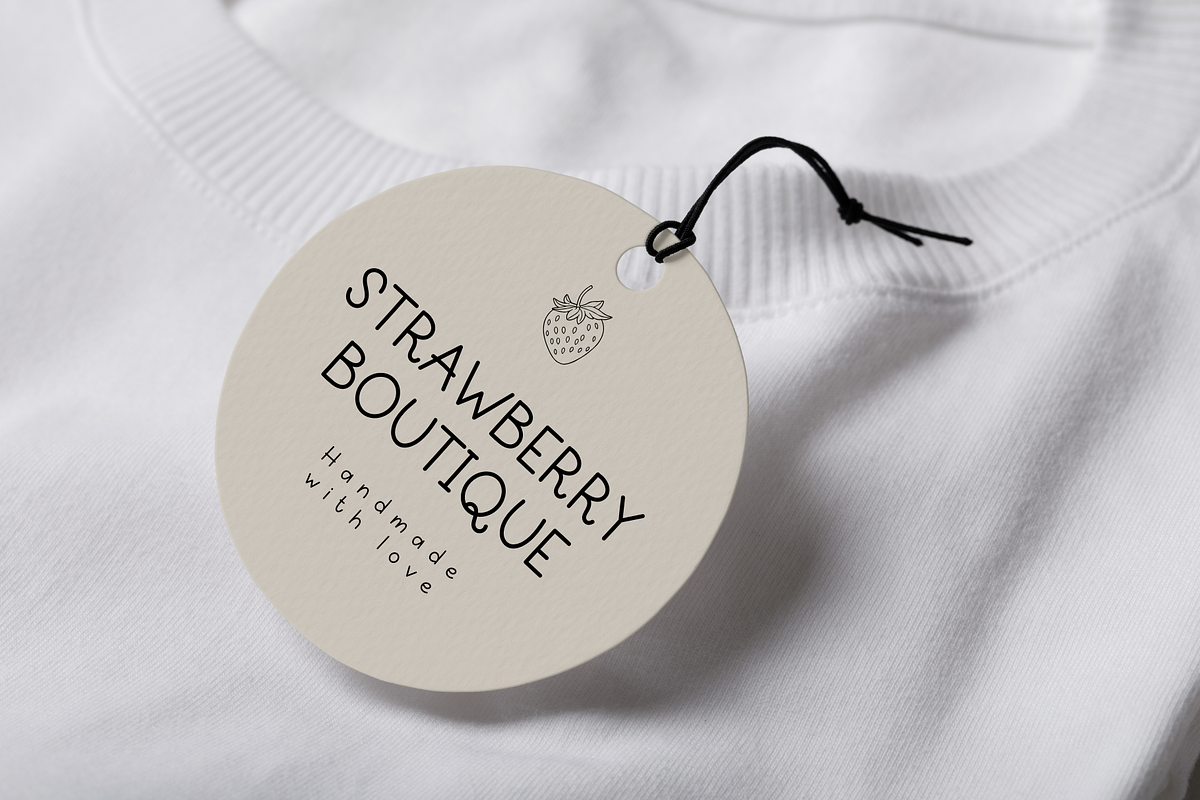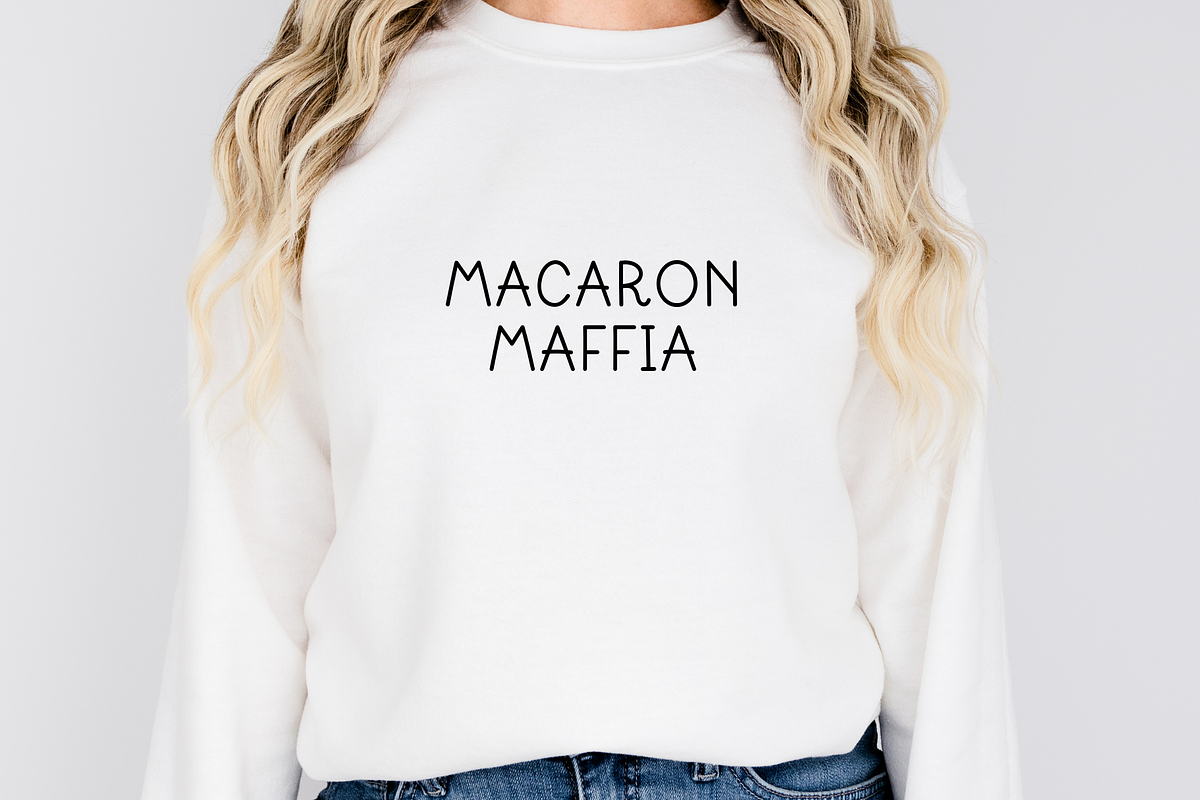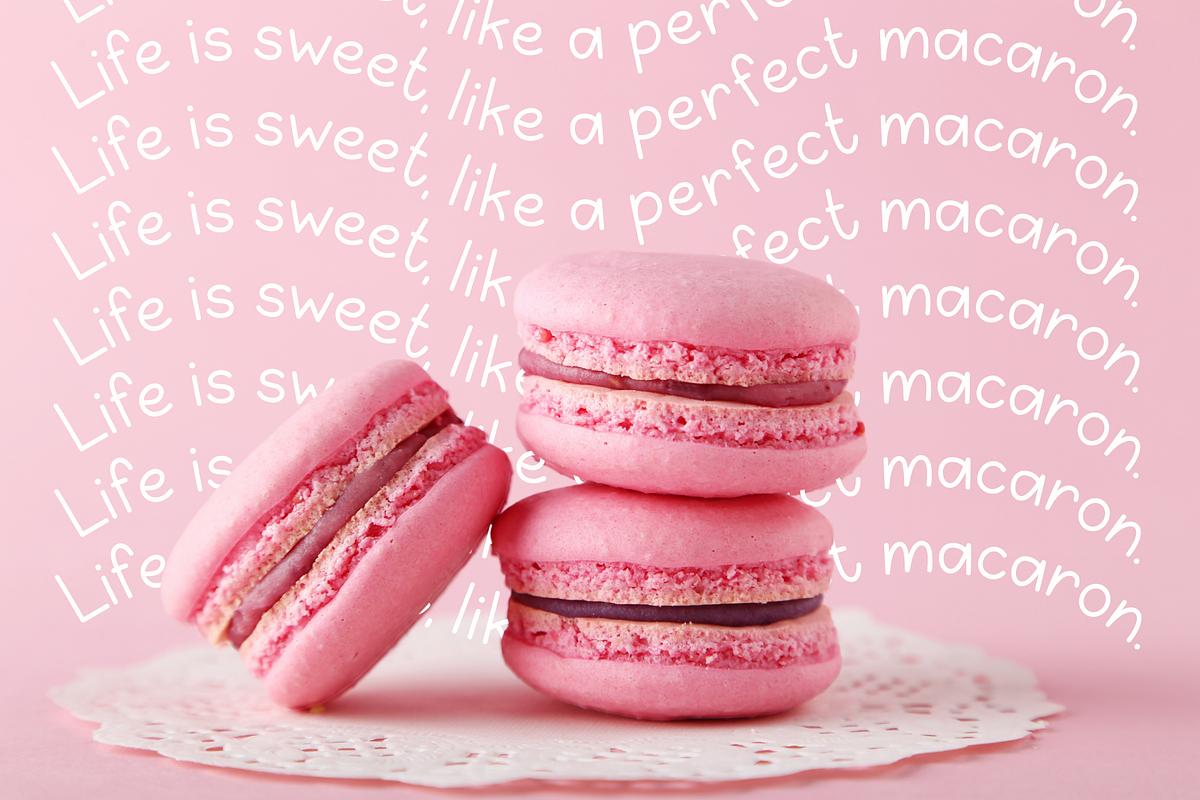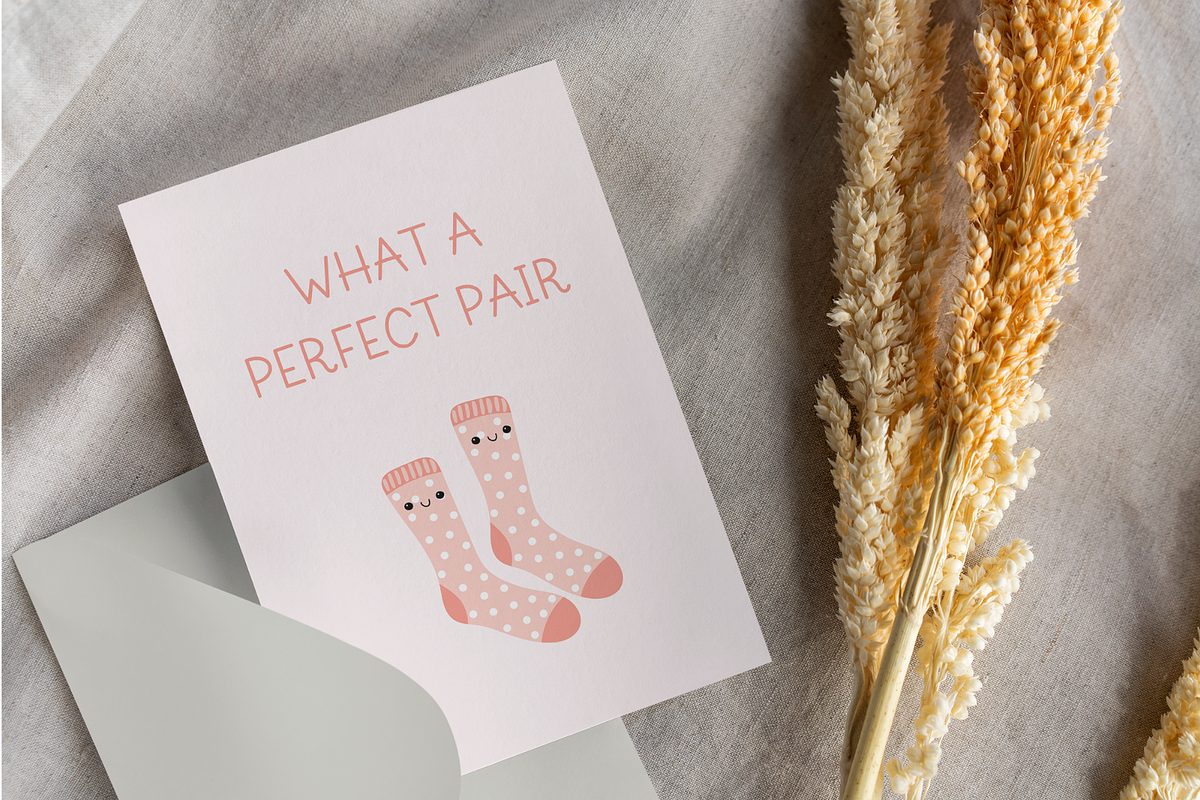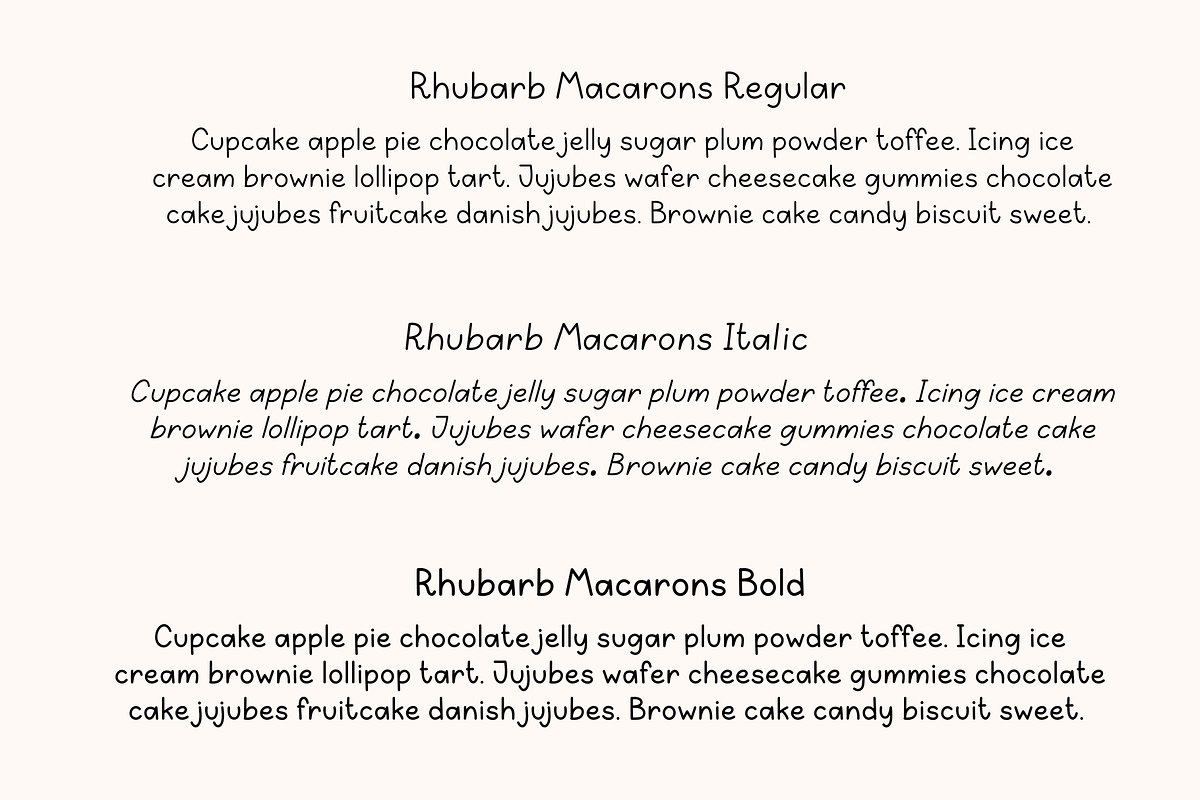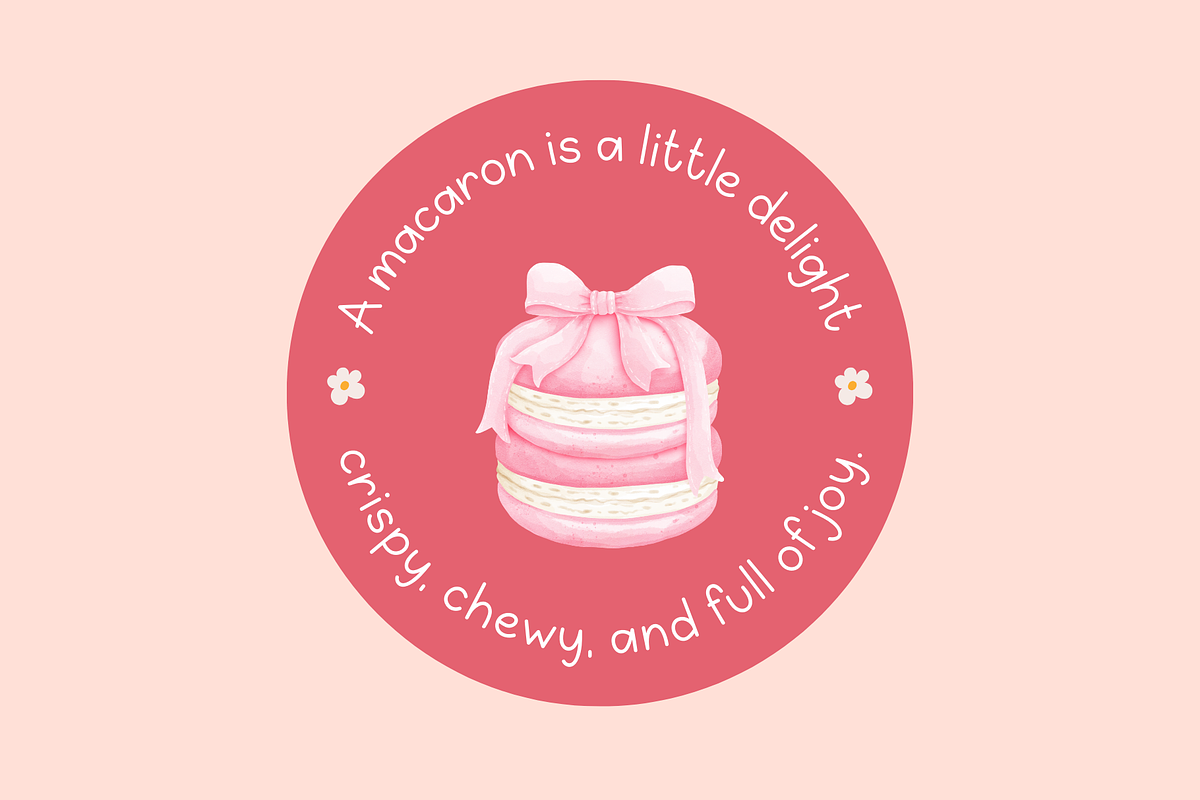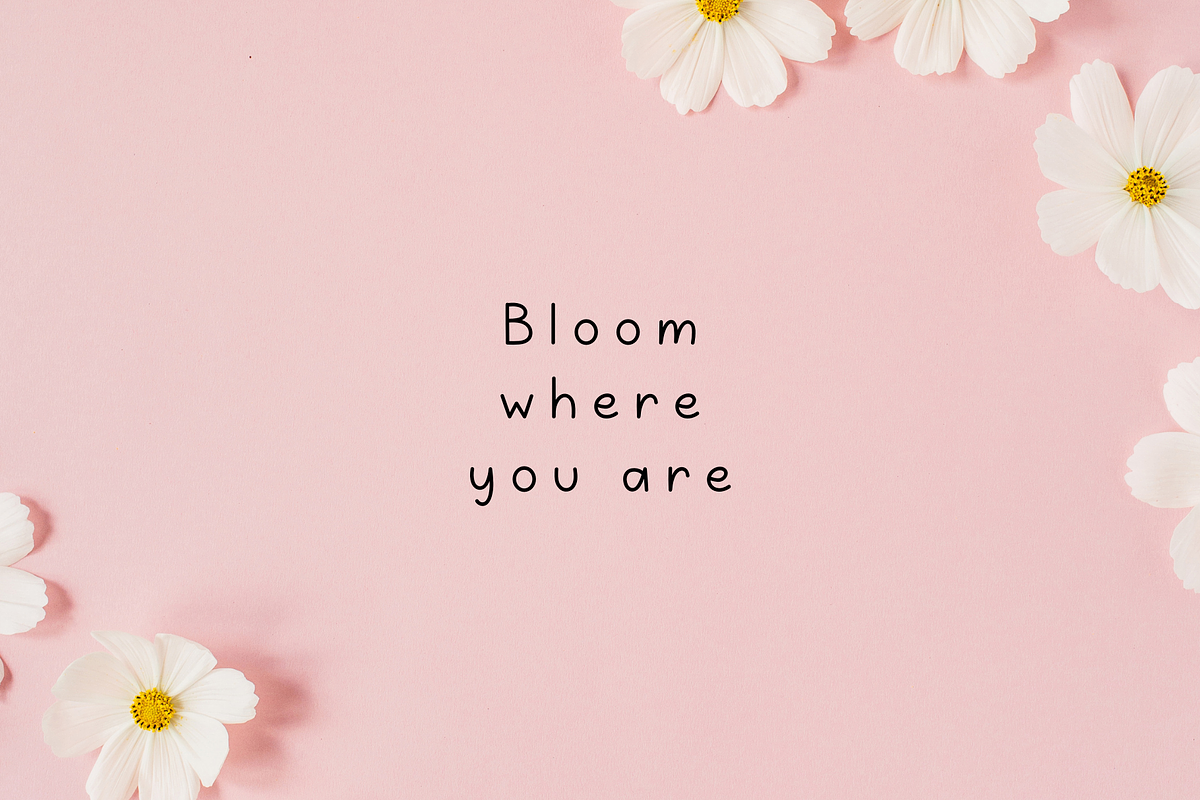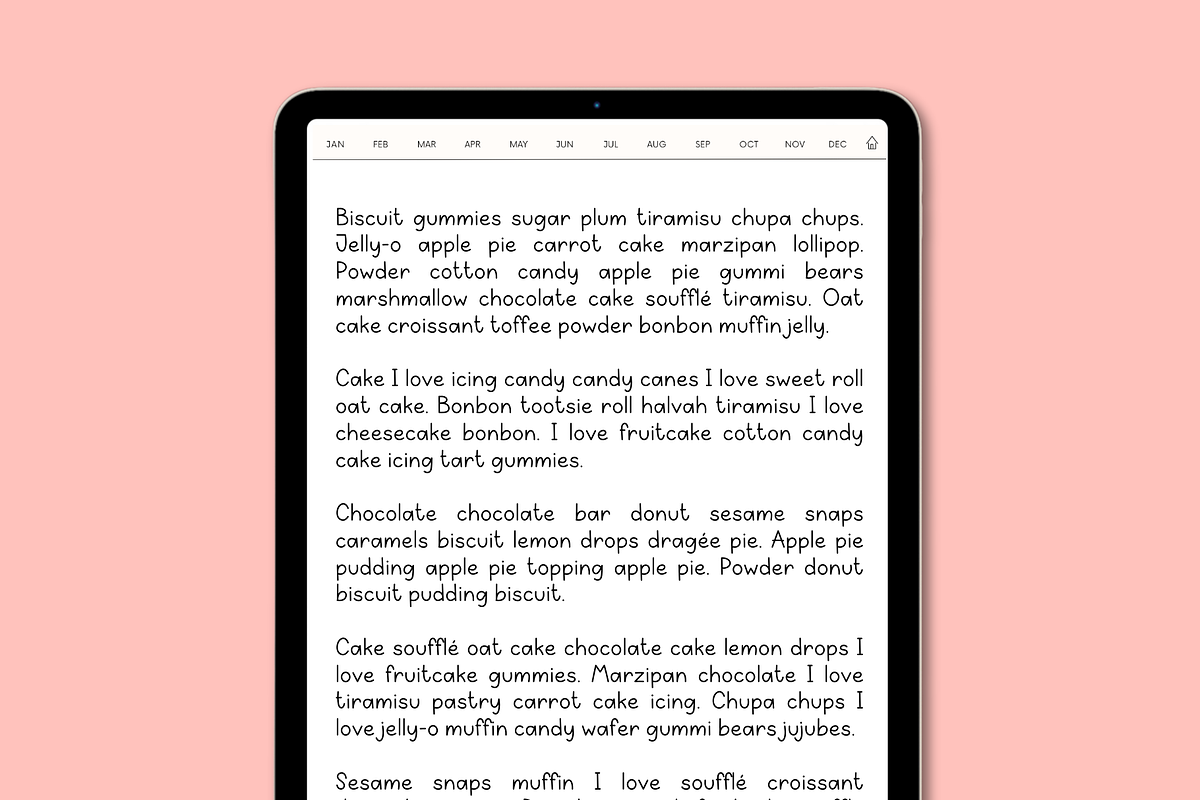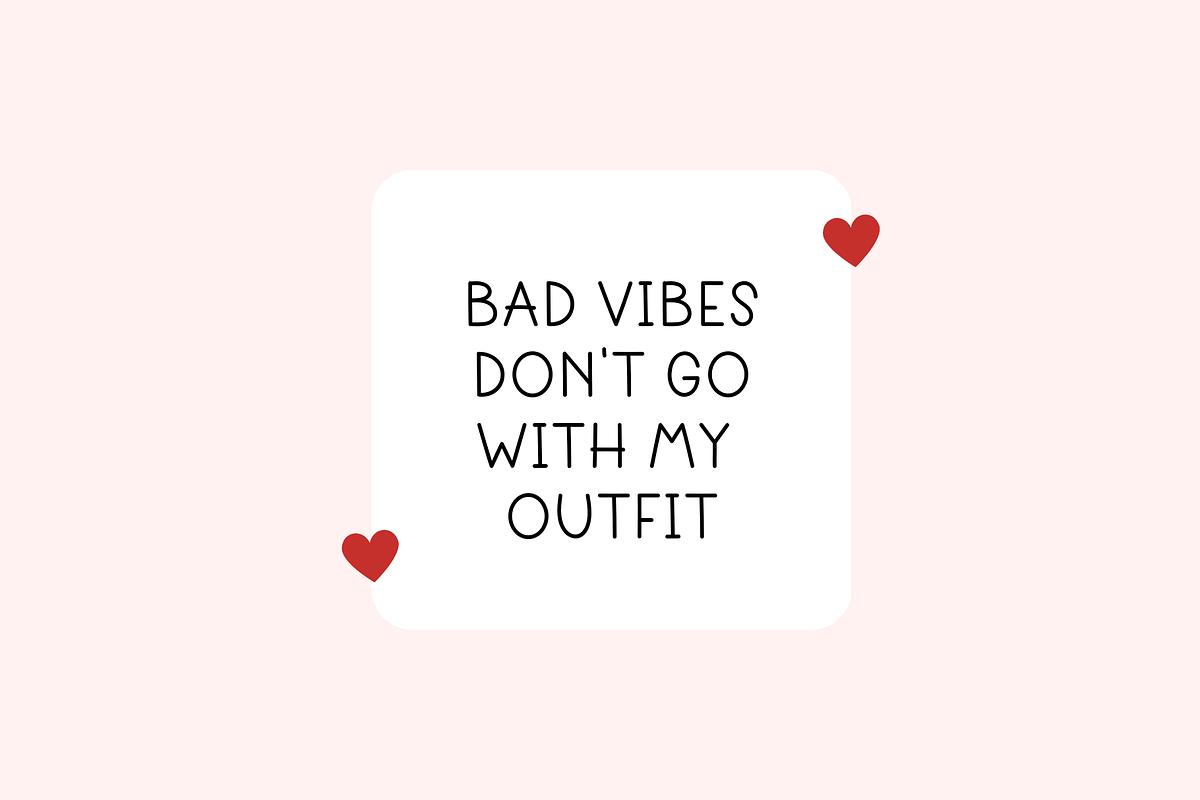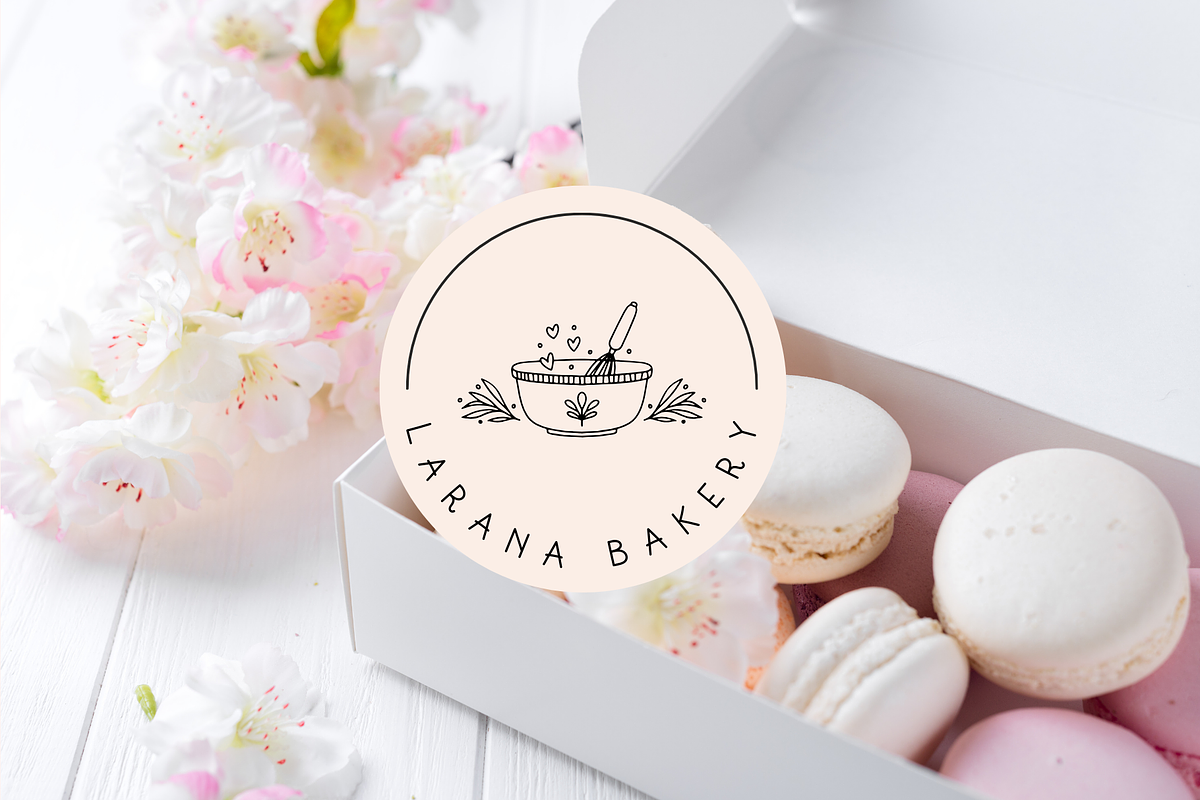
Rhubarb Macaron
A cute little font, perfect to jazz up your digital planner, journal, invitations, note-taking, or anything that requires a handwriting look.